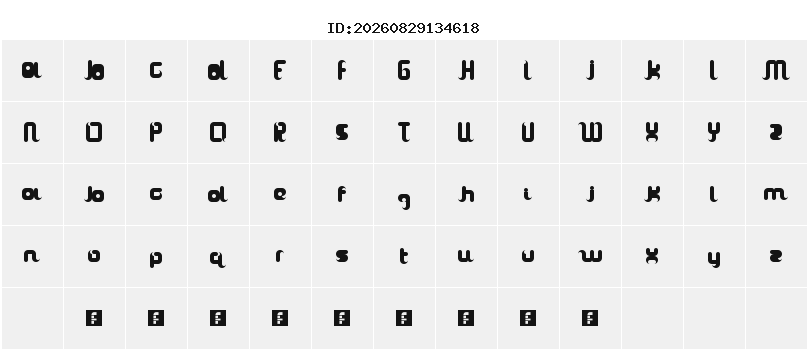
TheaSanti Preview
• Font Name: TheaSanti
• Font ID: FontStruct TheaSanti
• Full Font Name: TheaSanti Regular
• PostScript Name: TheaSanti
• Character Count: 54
• Copyright: Copyright itstheasantiago 2014
• Designer: itstheasantiago
• Description: ‚ÄúTheaSanti‚Äù was built with FontStruct
About TheaSanti.ttf
TheaSanti.ttf is a modern, elegant sans-serif font designed for ultimate readability and visual harmony. Perfect for branding, headlines, web design, and print materials.